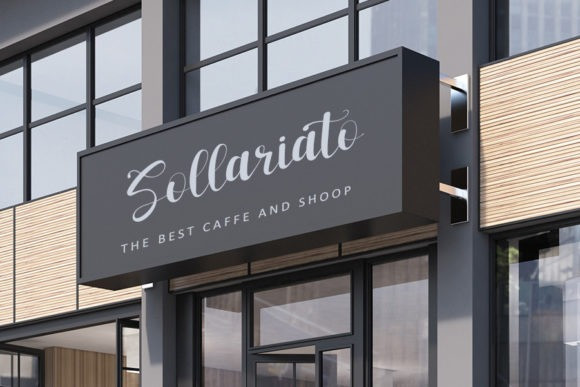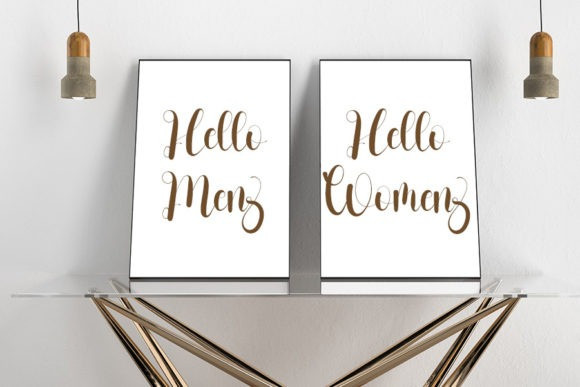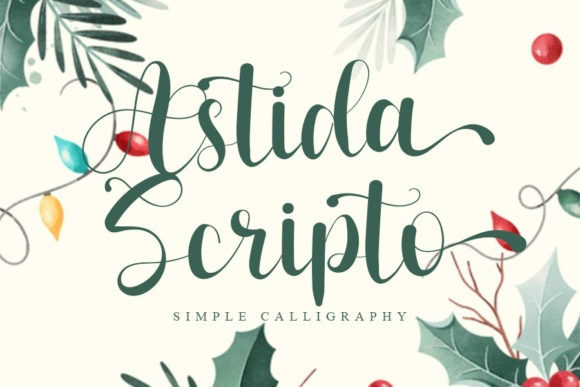
Astida Scripto Font
Astida Scripto Font is a romantic and sweet scipt typeface with characters that dance along the baseline. It will add a luxury spark to any design project that you wish to create!